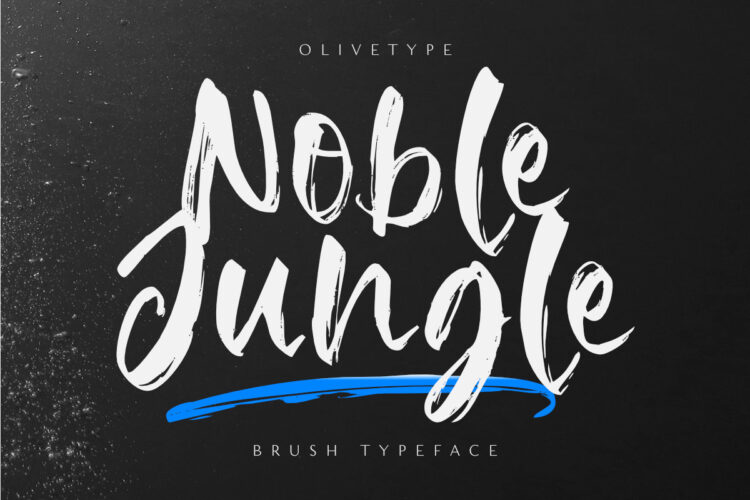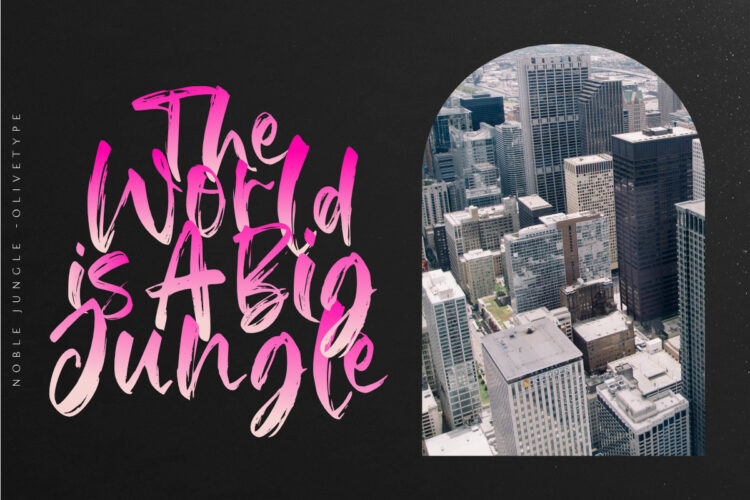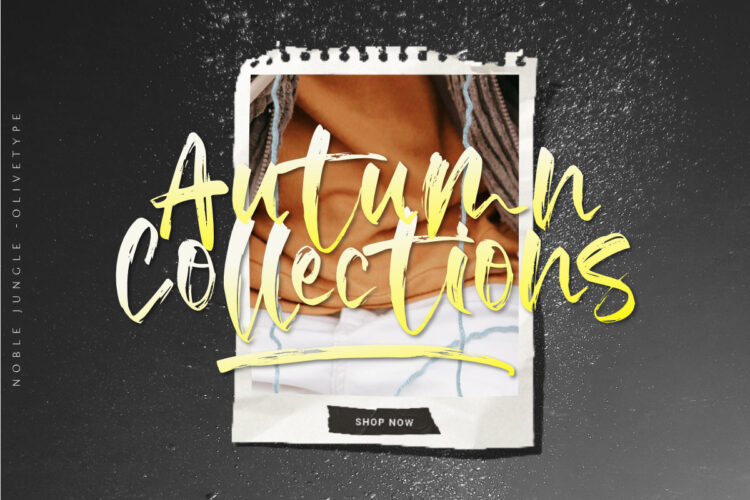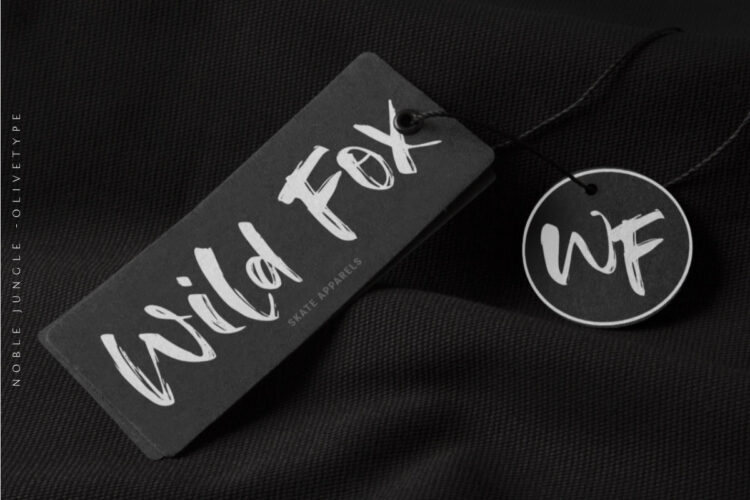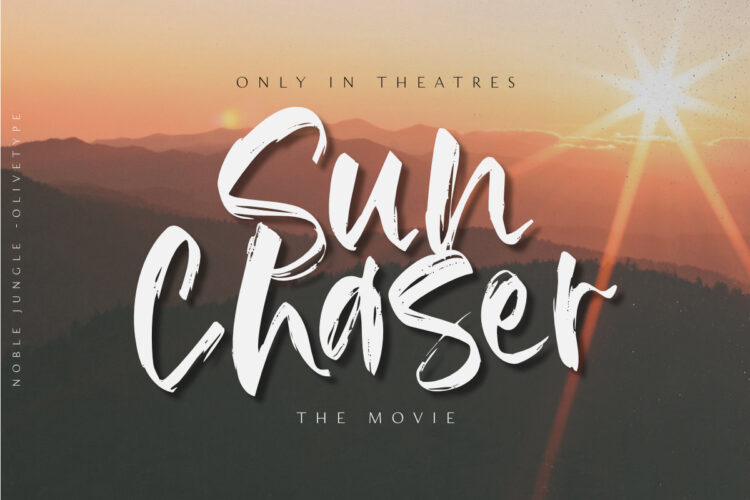
Noble Jungle is a stunning hand brush font with a graffiti-style feel. Get inspired by its unique charm, and turn any design project into a true stand-out. This brush typeface is supporting Multi-Languages, which include: Afrikaans Albanian Catalan Danish Dutch English Estonian Finnish French German Italian Norwegian Portuguese Spanish Swedish Zulu.
Noble Jungle will look outstanding in any context, whether it’s being used on busy backgrounds or as a standalone headline!